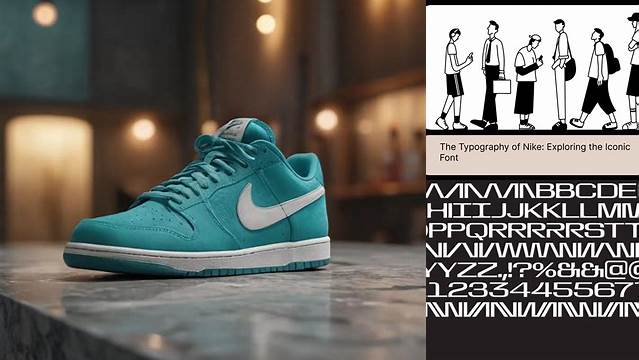
Unveiling The Iconic Nike Font Styles: A Deep Dive
Hey guys, let's dive deep into the fascinating world of Nike font styles! You know, the fonts are more than just letters; they are a crucial part of Nike's brand identity, echoing their values, and helping them connect with us on a visual level. We're going to break down the evolution of these fonts, explore their usage, and see how they contribute to the overall athletic vibe Nike is famous for. Buckle up, because it's going to be an exciting journey through typography and sportswear!
The Genesis of Nike's Typography: Early Influences
Alright, where did this whole thing start? The story of Nike font styles begins with a simple yet powerful concept. Nike, born from the vision of Phil Knight and Bill Bowerman, needed a visual identity that could represent speed, dynamism, and innovation. In the early days, the company wasn't quite the global giant it is today, but the seeds of its visual language were being sown. Think about it: the initial choices in font design, even before the iconic swoosh, were crucial. These choices had to resonate with athletes and the emerging sports culture. There's a certain energy in these early designs, a raw and energetic feel that matched the company's ambition. Early Nike font styles were often simple, clean, and bold. These fonts were chosen because they were easy to read at a glance, which was important for a brand targeting consumers. Early styles focused on readability and impact. The goal was to create a visual impression that was memorable and communicated the message of the brand. This era was marked by experimentation, seeking the right tone. It's like they were trying out different voices to see which one would stick. The emphasis on clarity and boldness reflected the company's commitment to performance and innovation. They wanted to stand out, and they did, with simple and memorable fonts.
Nike's Evolution: From Handwritten to Refined Fonts
As Nike font styles evolved, so did Nike. The brand grew from a small startup to an athletic behemoth, which required a more sophisticated visual language. Nike's typography matured with the brand. They moved from simpler choices to something more defined. There was a shift toward a more refined approach. This wasn't just about font choice. It was about curating a whole visual experience that supported the brand's goals. The brand transitioned to more carefully crafted font families. These fonts were used across products. From apparel to advertising, every detail was considered. The evolution of Nike font styles mirrors the evolution of sports and culture. Each update reflected the moment. It showed where they stood in relation to the athletic world. Over time, the brand moved from fonts that were meant to be edgy. They developed something that was recognizable. It's like they were writing a visual story. The fonts helped tell it. The result is a visual identity. The font is a symbol that's both unique and timeless. It's a symbol of achievement.
The Role of the Futura Font in Nike's Brand Identity
One of the cornerstones in Nike font styles is the Futura font. This geometric sans-serif typeface, designed in the early 20th century, has played a crucial role in shaping Nike's identity. Futura is simple, yet it exudes a sense of modernity and forward-thinking, which aligns perfectly with Nike's image of innovation and performance. Using Futura, Nike can create a recognizable look and feel. Its clean lines and geometric shapes create a feeling of confidence. This adds a strong visual dimension. Futura's versatility allows it to be used across different mediums. From products to advertisements, it can be used in all kinds of forms. Futura's timeless appeal gives Nike font styles an enduring quality. It shows that Nike is a brand that stays ahead of the curve. This is why Futura is part of their brand identity. The font's impact shows the importance of font choices for a brand. It conveys the message that Nike is modern. It's also reliable and focused on the future.
Exploring the Impact of Helvetica in Nike's Visual Language
Another important element of Nike font styles is the presence of Helvetica. This is another geometric sans-serif typeface. It's known for its neutrality, clarity, and exceptional readability. Helvetica has been used in various Nike campaigns. It's often found in its marketing materials. It complements the bold and energetic Futura, offering a more balanced visual presentation. Helvetica is a very adaptable font. It can be used to present complex information or to support a simple design. It adds to the overall clean aesthetic. The use of Helvetica in Nike font styles shows the brand's attention to detail. It's about making sure that every visual element works well. It enhances the message. It also reinforces the brand's image. Helvetica's presence highlights that the font choices play a crucial role. They make a brand memorable.
Decoding Nike's Font Usage: Products, Logos, and Marketing
Let's break down how Nike font styles are applied across the brand. You see it everywhere, right? From the sleek logos on shoes to the bold typography on apparel and the eye-catching graphics in advertising campaigns. It's a strategic approach to visual branding, creating consistency and reinforcing brand recognition. On product labels, you'll often see clean, legible fonts. These fonts are important, because they have to provide important information at a glance. This helps the consumer understand what they are getting. The choices reinforce Nike's dedication to quality and functionality. In logos, Nike font styles often go hand-in-hand with the iconic swoosh. They communicate the brand's core values. Nike uses typography in advertisements. This uses a visual language. It includes dynamic layouts, bold typography, and high-impact imagery. All of these create compelling marketing campaigns. They capture the viewer's attention. They also deliver a message. Nike uses Nike font styles across various platforms. They are used in their websites and their social media. They help build a consistent and easily recognized visual identity. The aim of all this is to build brand loyalty. It keeps Nike top of mind. It also makes it easier to recognize.
Analyzing Nike's Font Choices in Apparel Design
When it comes to apparel, Nike font styles are more than just letters. They're essential to the design. They convey a message of performance, style, and identity. The font choices can be as important as the fabric or cut. Fonts on clothing are used to express Nike's brand identity. They are printed on t-shirts and hoodies. They appear on running gear and basketball jerseys. The typefaces are selected to complement the overall design. They must also enhance the garment's functionality. The fonts must be readable. This is true whether you are a person on the go or in the gym. Bold, dynamic fonts often appear in apparel. These fonts are chosen to represent movement. They convey a feeling of energy. Some of the font styles show the sports heritage. Others suggest cutting-edge innovation. Nike frequently uses its own fonts. These fonts are used in designs. It's a way to control the look. It's another way to make its products stand out. The apparel design shows how Nike font styles help to connect with athletes and consumers. They create a common bond. The fonts communicate the values that Nike stands for.
Typography in Nike's Logo Design: A Closer Look
Let's get closer to Nike font styles and look at the logo. Nike's logo is famous for its simplicity and impact. The font choice plays a crucial role. The design is all about balance. The font must work with the iconic swoosh. The font choice enhances the visual impact. It makes the logo easily recognizable. Over time, Nike has used different fonts. They have created logos. These logos were modern. They were versatile. The fonts were simple. They were readable. They were chosen to make the logo effective. The brand has stayed consistent. They use sans-serif typefaces. These are easy to read. The fonts create a sense of modernity. They also reflect Nike's forward-thinking values. The typography is key to logo design. It allows the brand to communicate values. It shows how it stands out in the market. Nike font styles in the logo show how a design can last a long time.
Font Customization: Tailoring Fonts for the Nike Brand
Nike often customizes its fonts. This allows them to create a unique brand identity. The brand does this to make sure it aligns with the brand's voice. They adjust and adapt the fonts. They create a look that is distinct. It sets them apart from others. Modifications can be subtle. They can involve changes to the weight. They also can adjust the spacing of the letters. These kinds of changes can make the font more unique. They can also enhance readability. The customized fonts can reinforce Nike's message. This strengthens the brand's visual identity. Nike has developed its own fonts. These fonts ensure a consistent look. They also protect the brand. The brand's Nike font styles reflect their attention to detail. It's about creating a cohesive and impactful visual story. The customizations in font allow them to tell it in a way that feels authentic. This makes sure it stays in sync with who Nike is and what they do. The adaptations of Nike font styles also ensure they stay ahead of the curve. They help Nike to remain competitive. This approach to typography supports the brand.
Nike's Proprietary Fonts: Creating a Unique Identity
Creating proprietary fonts is a big part of Nike font styles. These fonts are tailored to Nike's needs. They support their unique visual identity. Custom fonts are unique. This gives the brand control. It keeps the brand from using generic fonts. They can also match the brand's visual identity. It includes its values and tone. These custom fonts help Nike stand out. They are used in all its products and advertising. Nike's dedication to its own fonts supports a consistent brand experience. This leads to recognition. Nike also makes its brand stronger. The fonts also provide a sense of design. The focus on custom fonts also shows the brand's commitment to detail. It is a dedication to excellence. It also reinforces its place in the world. Nike makes sure that its brand is recognizable. The brand wants to connect with its customers. Custom fonts are one way to do that.
How Nike Balances Font Design with Brand Consistency
Consistency is important for Nike font styles and for their brand. It's about creating a visual identity. The brand uses the same fonts. They are used across different platforms. Nike aims for a unified brand message. They can achieve it across a range of media. The brand's strategy involves a few steps. They keep the font choices to a minimum. This makes sure that the designs are very strong. They use a system for font use. It guides how and when the fonts are used. This supports a cohesive brand image. The brand also updates its fonts. They do this to make sure their look stays fresh. The updates often include adjustments. They may also change the weight of a font. This makes the brand stay up to date. Consistent font choices help with recognition. This also creates loyalty. This helps Nike to stay relevant. The brand keeps their visual identity strong. The Nike font styles are important to this.
The Psychology of Nike's Font Choices: What They Communicate
Let's look at the psychology behind Nike font styles. The brand's choices are not random. They are carefully selected to convey a message. They want to connect with you. They do this by appealing to the senses. They evoke emotions. Bold, strong fonts are often used to create a feeling of power. They can also project strength. The fonts communicate confidence. They also convey the spirit of competition. These font styles are connected to energy. They also make you think about movement and speed. Nike also uses modern fonts. They have clean lines. The fonts are often used to convey a feeling of innovation. These fonts are often used in modern designs. They reflect the brand's dedication to technology and the future. Font choices often communicate the brand's values. These are values of ambition. It is about pushing boundaries. It is about performance. Nike makes font choices that match. The Nike font styles communicate the brand's unique values.
Font Weight and Its Impact on Brand Perception for Nike
Font weight is one way that Nike font styles make an impact. It can affect the way the brand is seen. The weight of a font refers to how thick or thin the strokes are. Nike can use different weights. They can do this to convey different messages. Thicker fonts create a powerful message. They can also send a message of confidence. They reflect the brand's strength and determination. The brand may use thin fonts. They are often used to send a message of sophistication. They also provide a modern look. They work to reflect Nike's innovation. Font weight is key to design. It affects legibility and impact. Nike understands this. They choose font weights carefully. They can create the feeling they want. By controlling font weight, Nike helps to reinforce the values. Nike font styles help the brand. They also help make a connection.
How Typography Influences the Athletic Vibe in Nike's Branding
Nike font styles are a key element. They create the athletic vibe. They set the tone for the brand's image. Nike understands how to use typography to convey energy. They can show speed. This also suggests a feeling of action. The use of bold fonts reinforces the image. The fonts also increase impact. They evoke a sense of competition and energy. This is perfect for a brand tied to sports. The brand also uses streamlined fonts. These fonts are used to give the impression of a modern design. It makes the brand look innovative. The fonts convey a feeling of efficiency. They emphasize performance. Nike uses a variety of fonts. They also use other visual elements. These include dynamic layouts and vibrant colors. These all come together. The fonts support the athletic theme. They also make a strong emotional connection. The Nike font styles work together to create the image. They match the brand. They help communicate what Nike stands for.
Future Trends in Nike's Typography: What to Expect
What's next for Nike font styles? As design trends change, so will the brand's look. Nike will continue to use typography. It will match its image and values. We can expect that the brand will continue to experiment. They are always looking for new styles. Nike always tries to use fonts. These fonts are relevant. They connect with their audience. The brand could use fonts that are more interactive. They might use fonts that adapt. The fonts would match the way people look at digital content. They may use fonts that are personalized. The fonts would match individual preferences. They would also match the changing visual environment. The brand is looking to connect. Nike will also keep making custom fonts. It allows them to stay on the cutting edge. It keeps their brand unique. The brand's future will depend on how it can create an image. This image matches today's trends. The Nike font styles will also play an important role.
Predicting Nike's Font Adaptations in a Digital World
The digital landscape is changing. Nike font styles will change with it. Nike's font adaptations will be designed for digital platforms. They must adapt. They also need to ensure that the message is clear. This includes mobile devices and websites. The brand may use fonts that adjust dynamically. They can adjust to different screen sizes. They may also choose fonts that improve legibility. This is very important in the digital age. This includes font choices. It includes the way the fonts are used. Nike's fonts may become more interactive. They could also feature movement. They will match the dynamic experience. Nike may explore fonts. These fonts are designed to make each person feel unique. The font will also evolve to match the changing landscape. The goal is to meet people where they are. The brand will also make sure that its values are seen. This will all be done through Nike font styles.
Sustainability and Font Design: A Possible Future for Nike
Sustainability is becoming increasingly important. It may affect the way Nike font styles evolve. Nike has shown its focus on sustainability. This can be seen in the materials they use. It can also be seen in their manufacturing processes. The brand can also apply this to its font design choices. Nike might choose fonts that have a smaller impact. This would reduce the use of ink. It would also improve their print processes. Nike could design fonts that are readable. They would use low resolution screens. They might also use fonts. The fonts are designed to match the brand's values. The brand may explore new ways. They might use different fonts. These might include fonts that can be customized. They could also be used across platforms. Nike can show that they care about sustainability. They can do this in a variety of ways. The Nike font styles could play a role. This is another way they could improve their image. It helps them be more relatable.
Tips for Appreciating Nike's Font Styles: A Fan's Guide
Let's talk about how to appreciate Nike font styles! This is about seeing how the design influences you. It is about enjoying the artistry. The next time you see a Nike ad, pay attention to the fonts. Think about the message. You should consider how the fonts make you feel. Look at the product. See how the fonts appear on the clothing. Notice the details. They show the care that the brand shows. Do your research. Learn about the fonts. Find out about their history. This will help you understand how they are being used. Go online. There are many communities. They discuss graphic design. It's a way to share knowledge. This helps you to appreciate the craft. Take inspiration. The fonts can inspire you to create your own designs. It can also influence your own work. See how Nike combines visual elements. Use your knowledge. Your knowledge can help you appreciate the design. This will help you appreciate Nike font styles.
Analyzing Nike's Typography in Advertising Campaigns
When you are looking at Nike font styles, think about the advertising. Think about the campaigns that show the brand. Look at the visual story. The next time you see a Nike ad, pay attention. Consider the layout. Look at the photos. The fonts are carefully picked. They match the message. Identify the fonts used. Look at their style and weight. Think about the emotions they create. How do the fonts influence your eye? Consider the brand message. The fonts work to convey the brand's ideas. They help people understand them. The font choices are often a way of making people feel connected. You can learn about the brand and its values. Look at the use of space. The space can also enhance the design. It helps the layout and the fonts. Use different media. Look at print ads. Look at online ads. The fonts are often used across various platforms. Analyze how the Nike font styles create a consistent visual identity. They are key to helping the brand connect. The fonts also reinforce the values.
Using Nike's Font Inspiration in Your Own Design Projects
Are you a designer? Are you interested in design? You can learn a lot by getting inspiration from Nike font styles. Study the brand's typography choices. See how the brand uses different fonts. Pay attention to the details. Consider the arrangement. The weight and style of the fonts matter. Experiment with the fonts. You can use similar fonts. These fonts are available. Try to mix and match the fonts. Create your own unique style. Consider the context. You will have your own projects. Match your design choices to the message you want to convey. Think about the colors, layout, and the overall design. This will make a great visual experience. Analyze your work. Ask for feedback. Get ideas from other designers. It will help you improve your craft. This is about exploring ideas. The fonts provide endless inspiration. This will also help you learn about Nike font styles.
The Enduring Legacy of Nike's Font Choices: A Timeless Appeal
The Nike font styles show the brand's image. They provide an easy way to recognize the brand. The fonts also show the core values. The brand's designs show the lasting impact. It is a testament to the power of strong branding. The brand has used simple, clean fonts. They are also easy to read. They are also effective. They have created a visual identity. The fonts connect with people. The designs have evolved. They also match the brand's image. It shows Nike's dedication. They have been very consistent. Nike also uses fonts. They are innovative. They are also cutting edge. This has made the brand relevant. Nike's legacy rests on a visual identity. This has made the brand recognizable. The success comes from Nike font styles.
The Role of Nike's Typography in Branding Longevity
Nike font styles have played a crucial role. They have helped the brand survive and thrive. The font choices can help the brand become stronger. They create a bond. The brand's fonts are used everywhere. They are used on clothing. They are used in ads. The brand has a very consistent look. The fonts help create a strong brand. They help make the brand recognizable. Nike has also created a legacy of innovation. They continue to stay on the cutting edge. They make sure that their font design is fresh. This is why the brand lasts. It continues to connect. It also stays strong. Nike can keep its image. It is successful because it uses the right fonts. It also matches them to its message. The Nike font styles can help brands stay strong. It helps them last over time.
Celebrating the Impact and Influence of Nike's Font Styles
Nike font styles have influenced the world of design. The fonts have had a big impact. The fonts have influenced design trends. They have inspired designers. They also connect with people around the world. Nike's fonts are simple, bold, and easily recognizable. The fonts are also modern. They also express the brand's values. Nike also shows that it cares about design. The brand makes a strong statement about design. Nike has helped to define the sports industry. They have created a visual culture. Their fonts continue to resonate. They inspire. The fonts show the importance of design. It is a reminder of their influence. The Nike font styles are a legacy. They continue to inspire. This also impacts the field of design. The brand's success is a good example. It shows how important good design is.